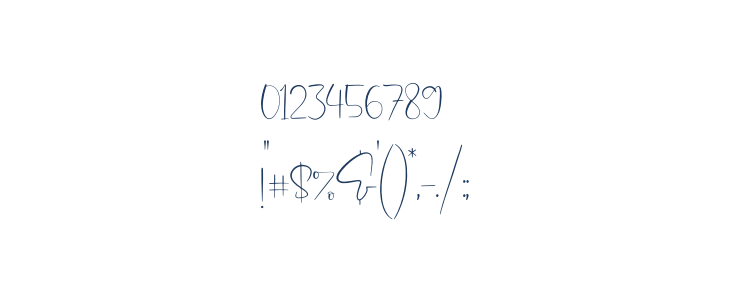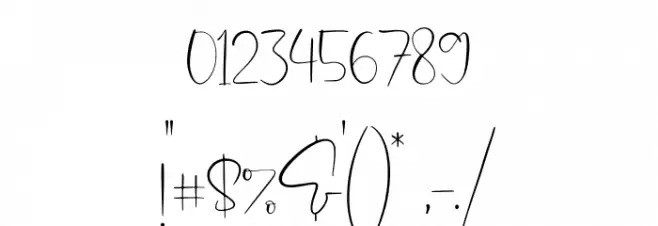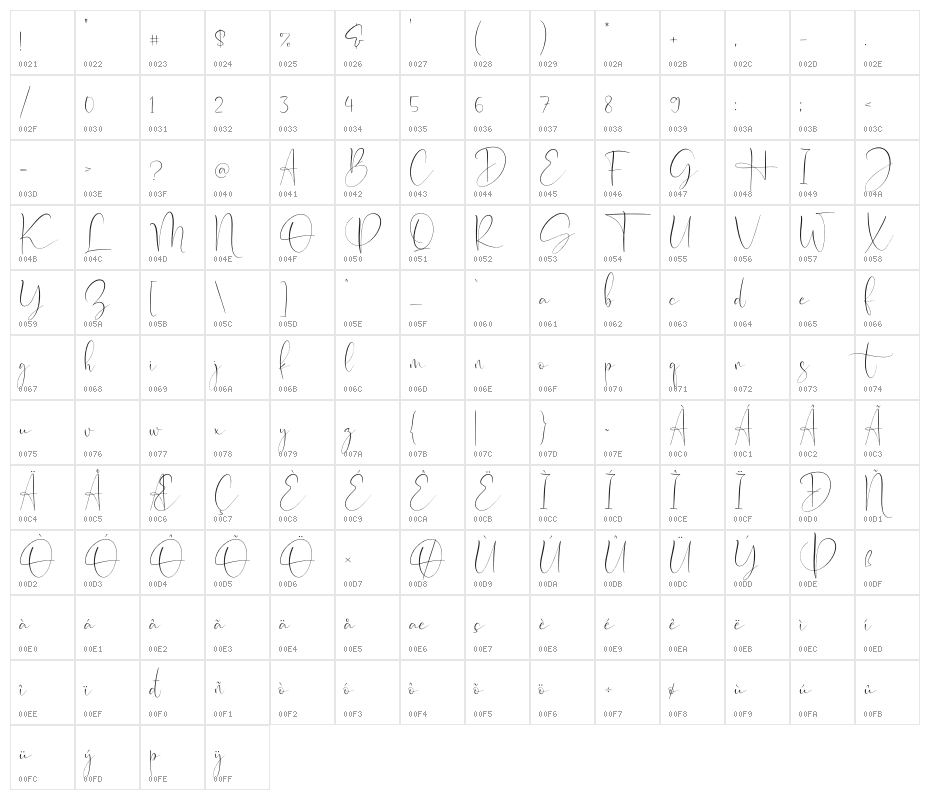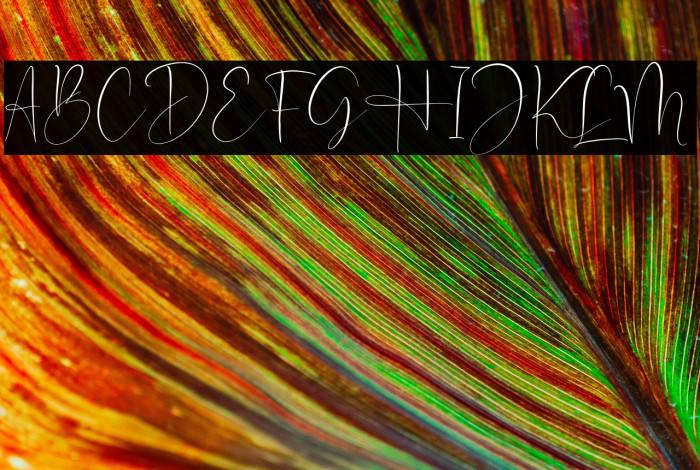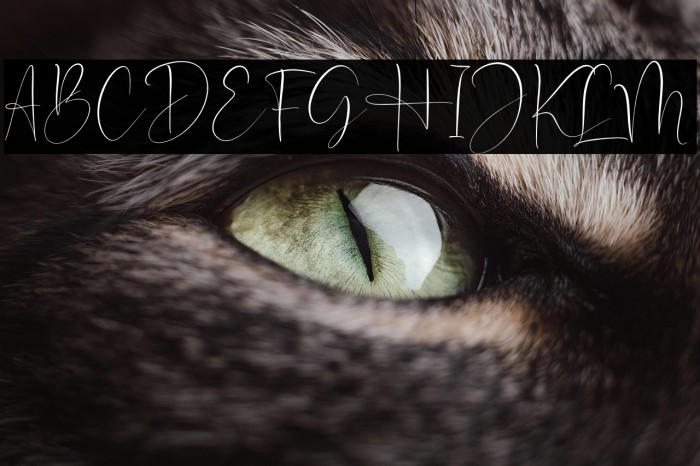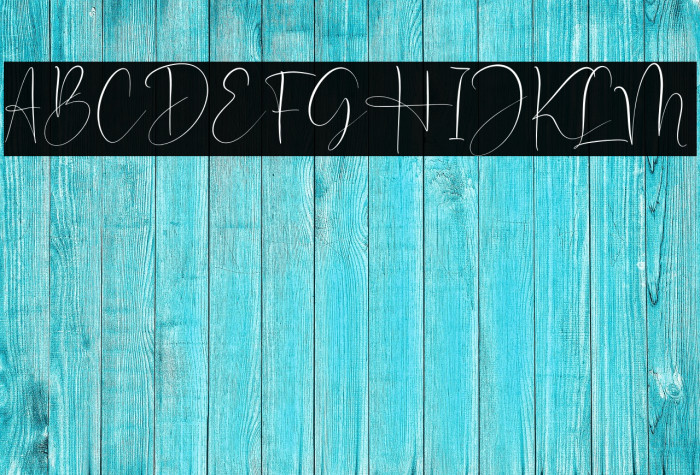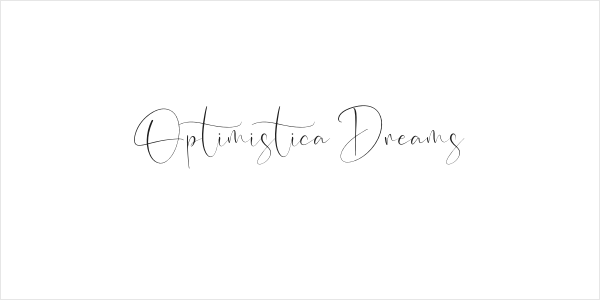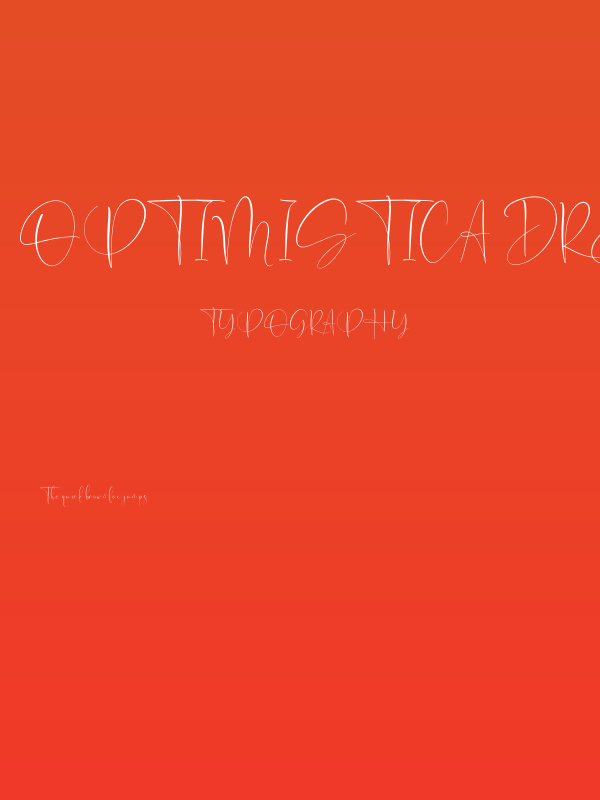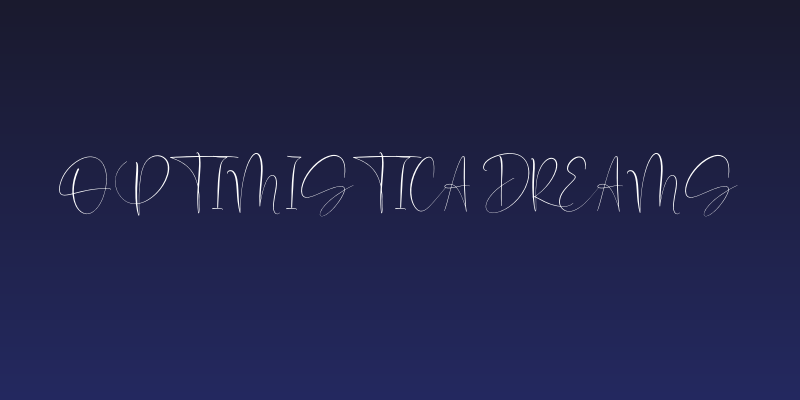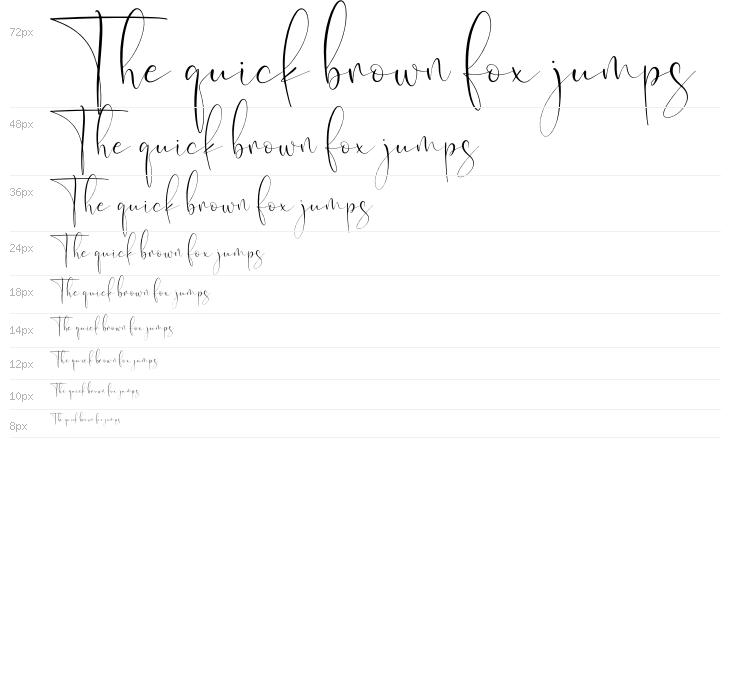
Optimistica Dreams Font
Optimistica Dreams Description
This font exudes a whimsical and elegant charm, characterized by its flowing, cursive script style. The letters are interconnected with graceful loops and swirls, giving it a handwritten appearance. The uppercase letters are tall and slender, while the lowercase letters maintain a consistent flow, enhancing readability despite their decorative nature. The numbers and special characters are designed to match the overall script style, ensuring a cohesive look across all text elements. This font is perfect for projects that require a personal touch, such as invitations, greeting cards, or branding materials.
| Proposed Projects | Ideal for wedding invitations, personal branding, greeting cards, and elegant stationery. |